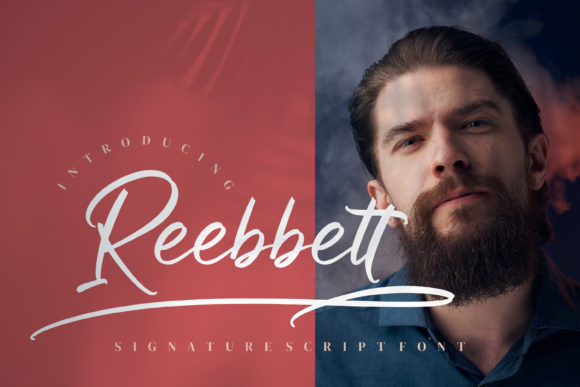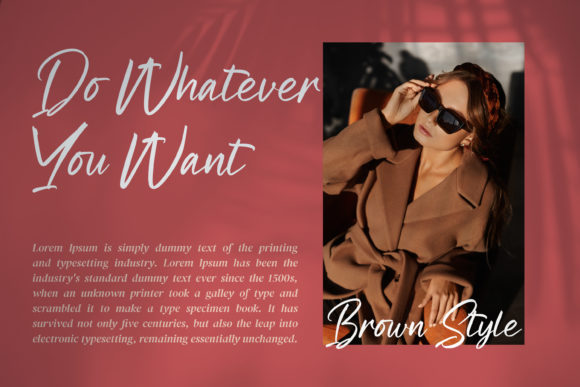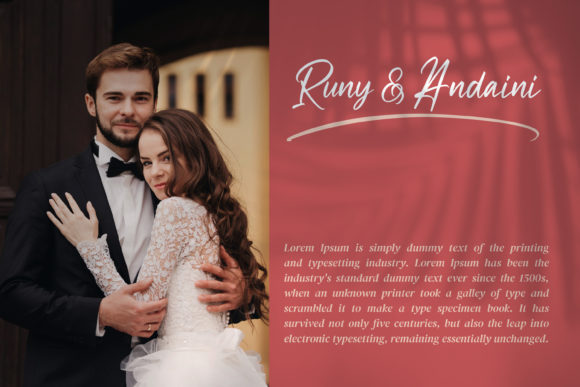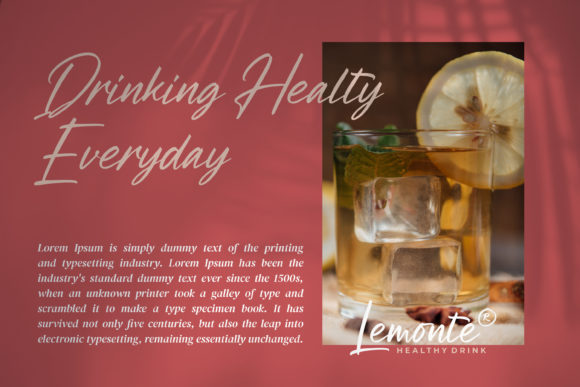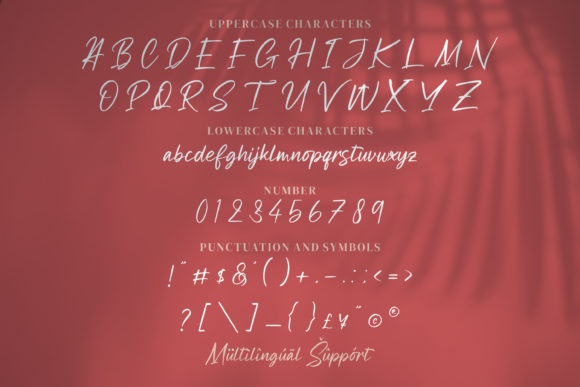
Reebbett Font
About Reebbett Font
Reebbett is a relaxed, modern and cursive script font. It can be used for various creations that require a cool and adaptable style. Have fun with this beautiful font and explore its endless variations.